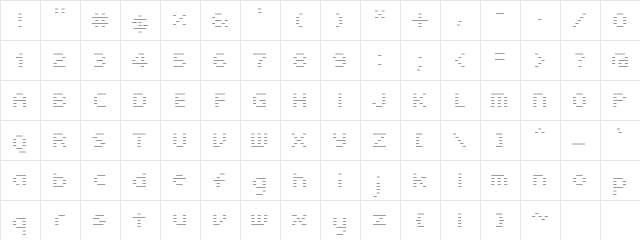
Cardew Three Light
Design Context for Cardew Three Typeface
Cardew Three offers clean, dependable letterforms without strong stylistic allegiance, making it a practical choice for designers who need flexibility. Its slender proportions lend an understated elegance to any composition.
Pro Tip: Use Cardew Three in both headline and body roles to test its range before committing to a single application.